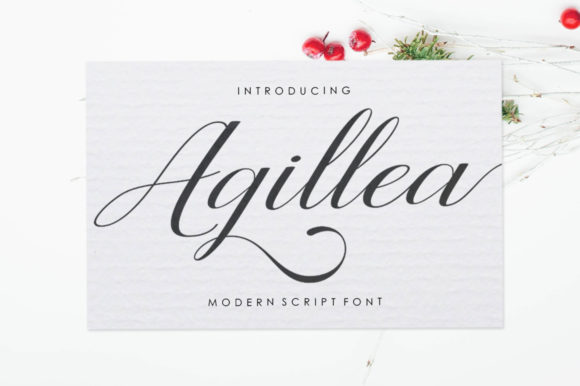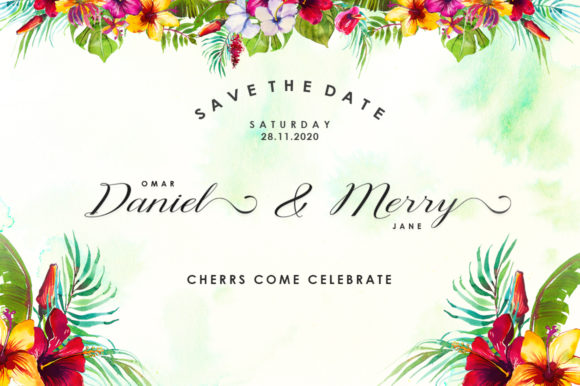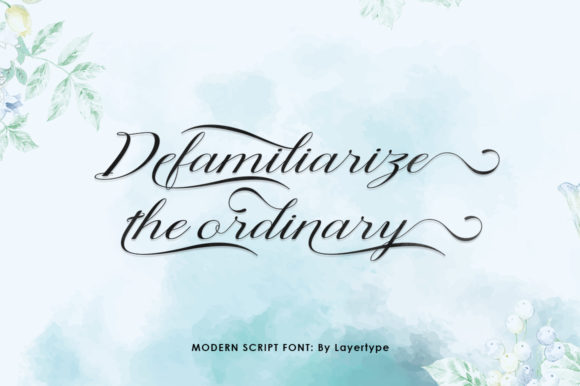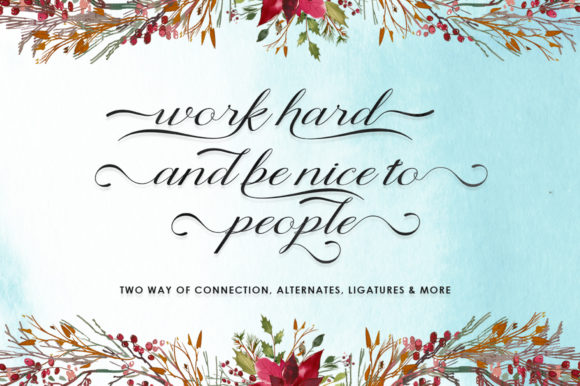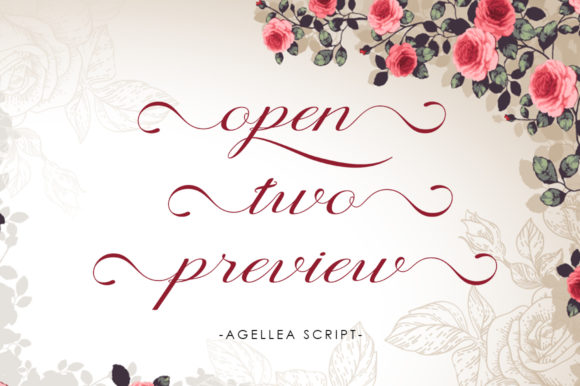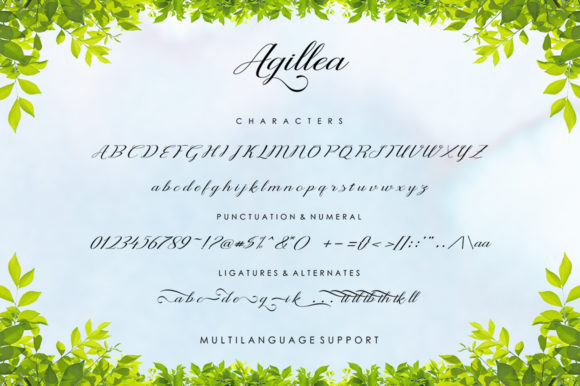
Agillea Font
About Agillea Font
The Agillea is a modern calligraphy script. Its handwritten style will give your design a natural and elegant feel.
It can be used for logos, wedding invitations, titles, signatures, t-shirts, letterheads, signboards, labels, posters, and more!